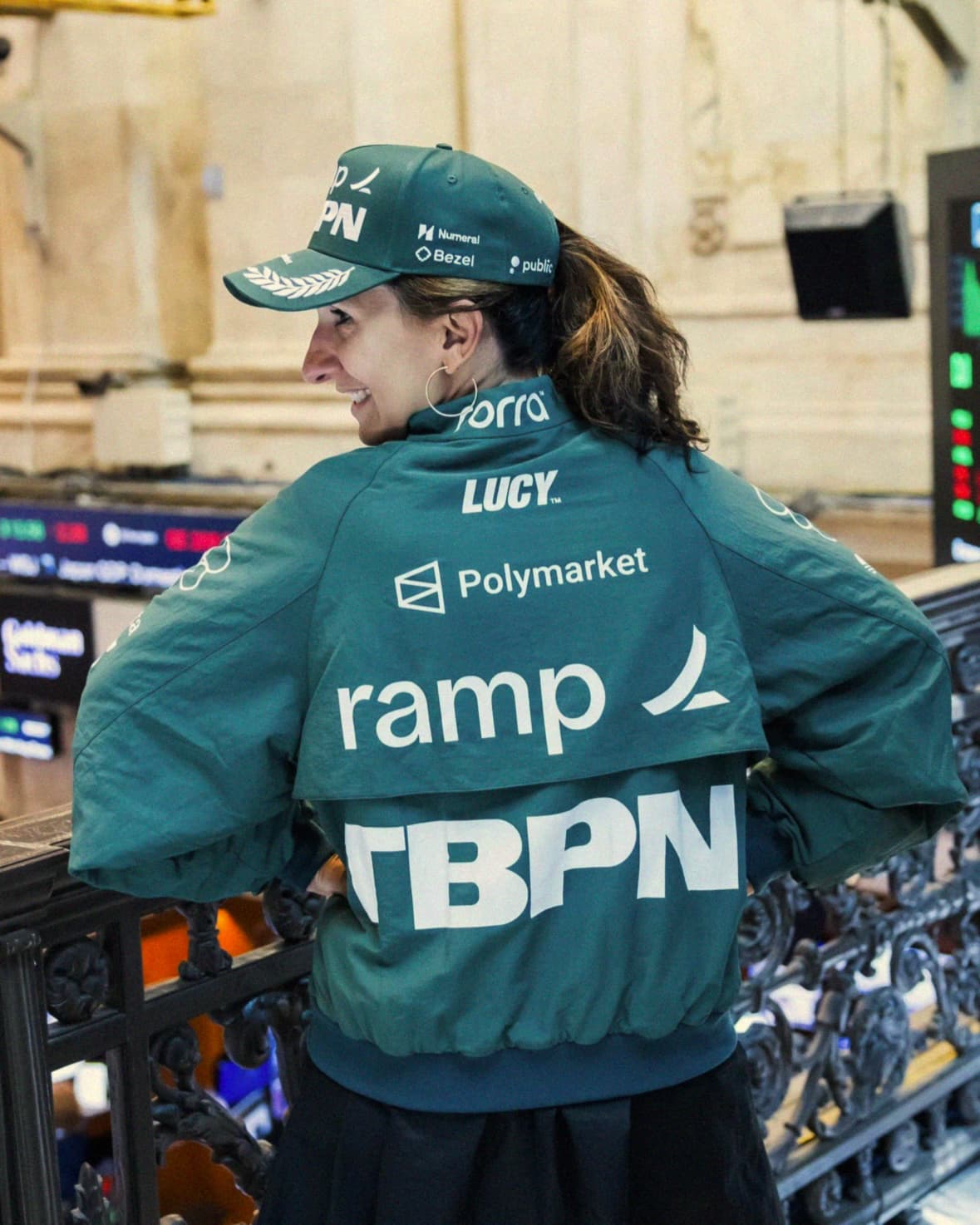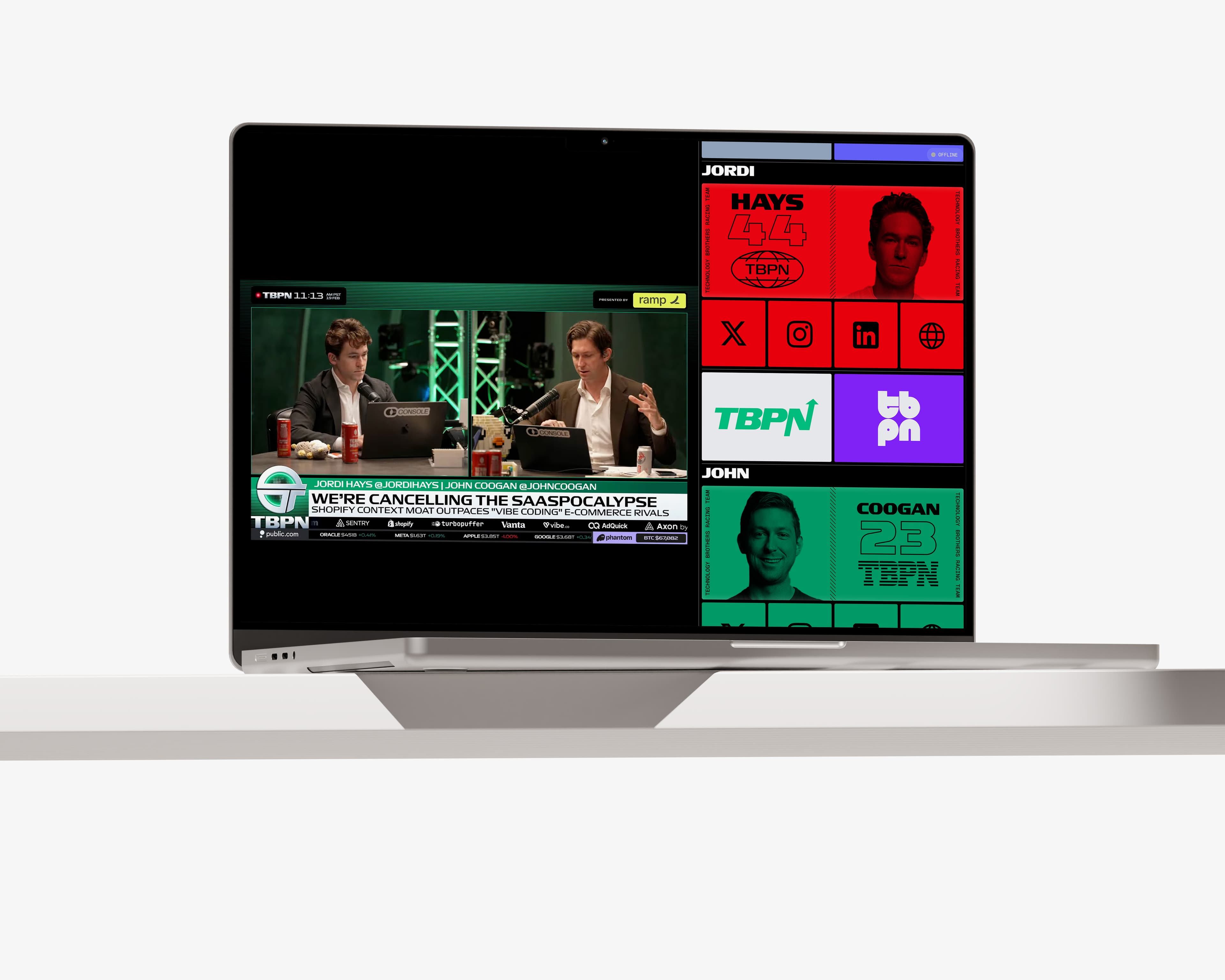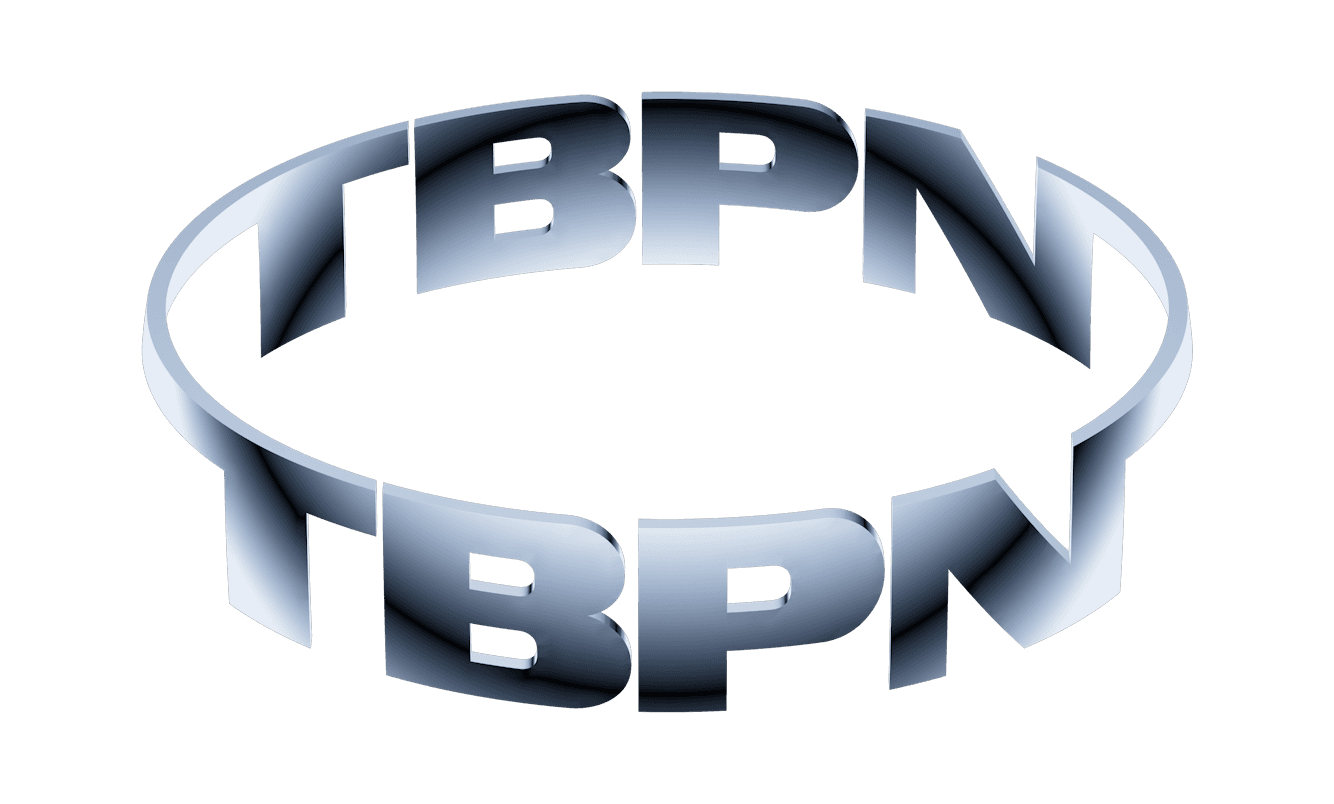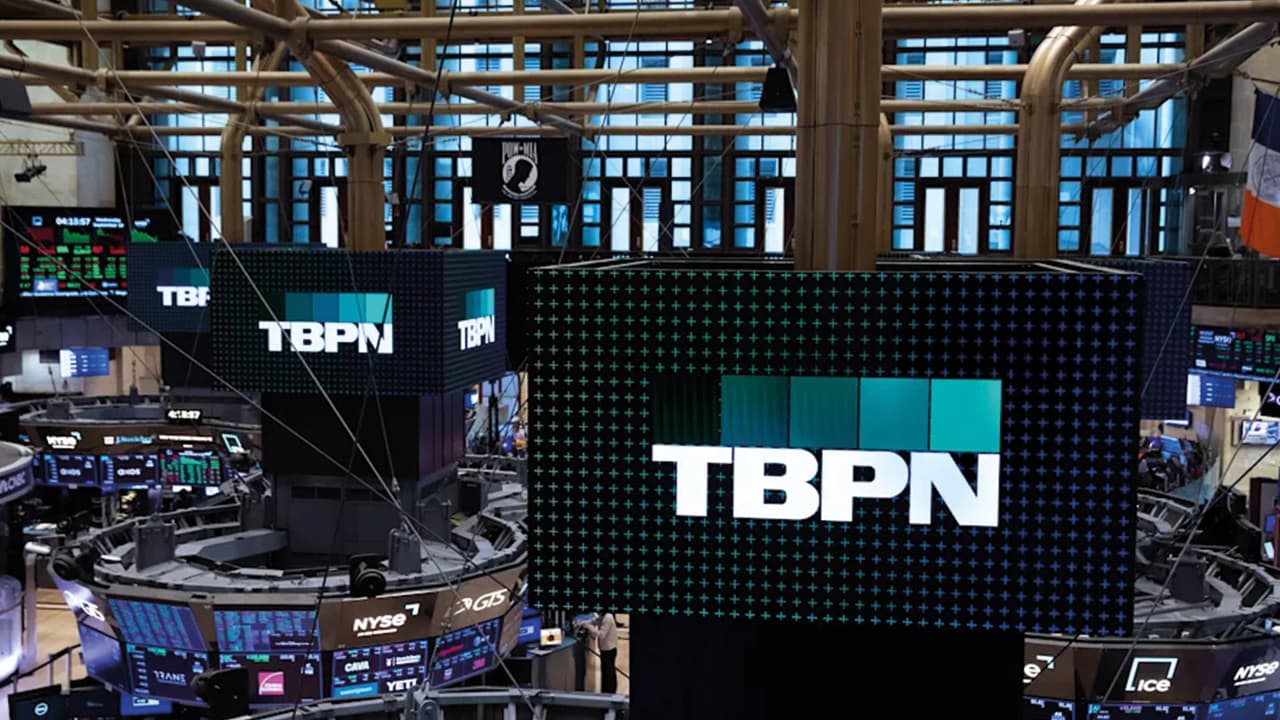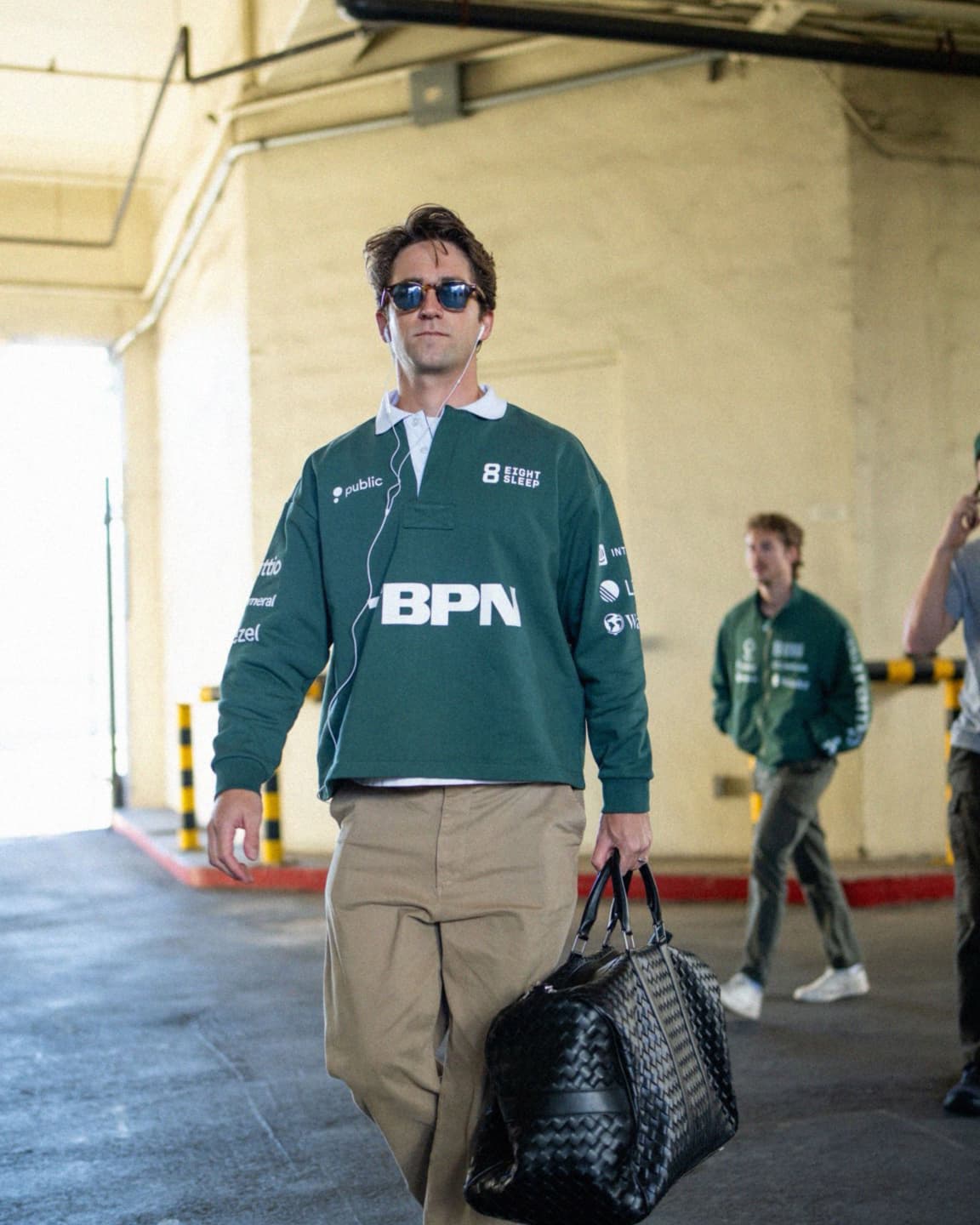
How can a tech podcast become Silicon Valley’s newest obsession?
For Jordi Hays and John Coogan, hosts of TBPN — the Technology Business Programming Network — the answer began with branding.
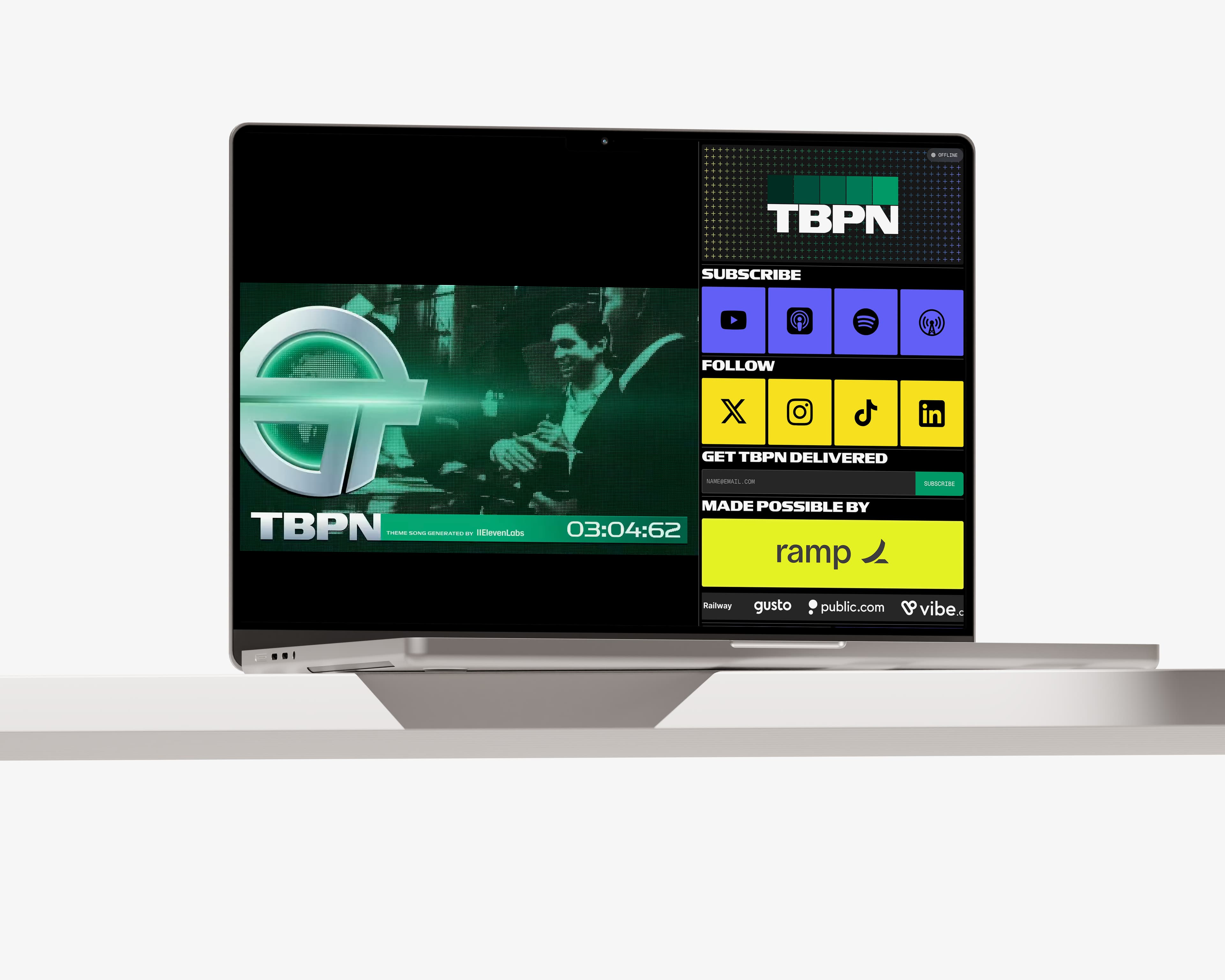
The brand system initially designed by Day Job, drawing inspiration from Formula 1 sponsorship density, forest-green “country club” codes, and lo-fi VHS effects, embraced spectacle over startup minimalism. The visuals were later carried and expanded by Area Technology with a new suite of live broadcast graphics, intensifying TBPN’s on-air presence across streaming platforms.
At the center of both phases is Record Laser, designed by Image Format and published under Sharp Type’s season two catalogue. Used as the sole typeface across the entire system, Record Laser carries headlines, motion graphics, and interface typography without auxiliary support.
The decision to rely exclusively on a single display family underscores its range and broadcast legibility, positioning the typeface not simply as a stylistic layer but as the structural and expressive core of a contemporary media brand.